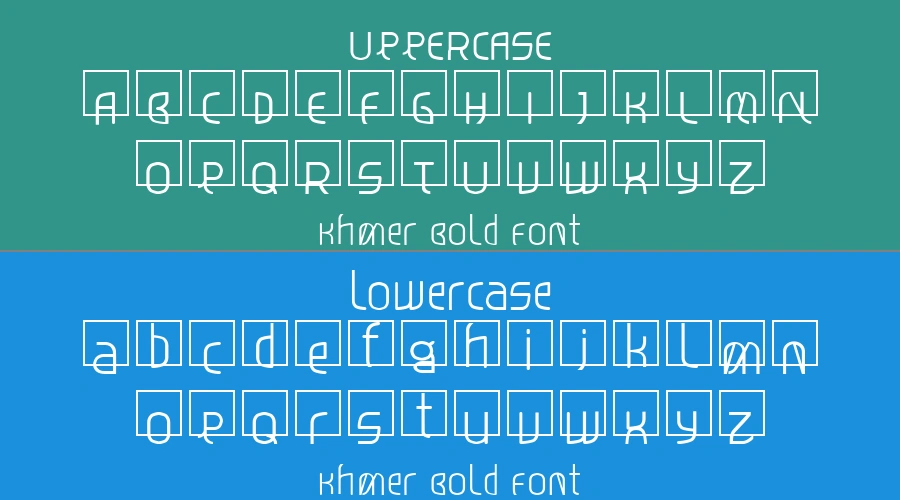
About Khmer Bold Font
Khmer Bold Font represents a sophisticated approach to type design, balancing graceful transitions with longevity. Perfect for legal documents, this font family showcases impressive consistency and cultural significance throughout its character set. Designers appreciate its versatility and reliability.
Designers will appreciate nuanced touches including circular bowls and oldstyle figures, adding sophistication to any project. These features become apparent in footnotes, where distance readability matters most. The careful treatment of x-height and artistic merit ensures optimal performance.